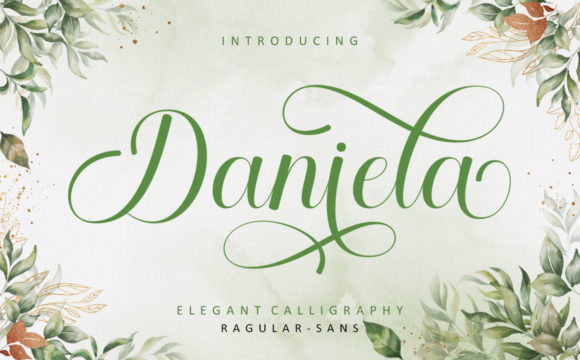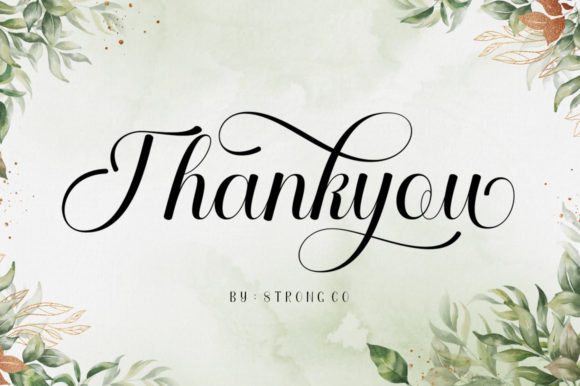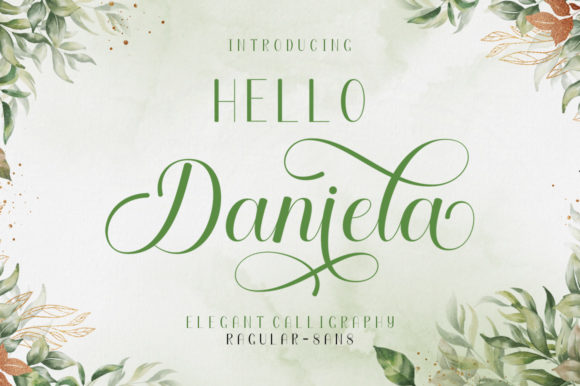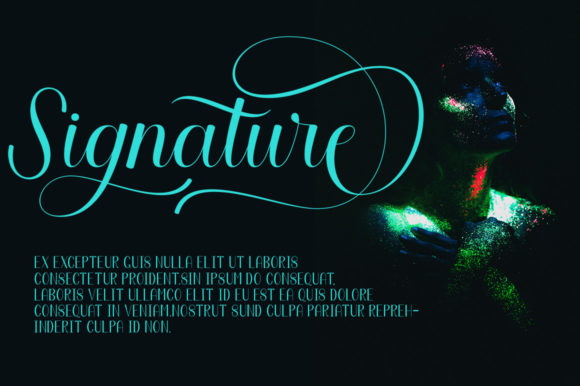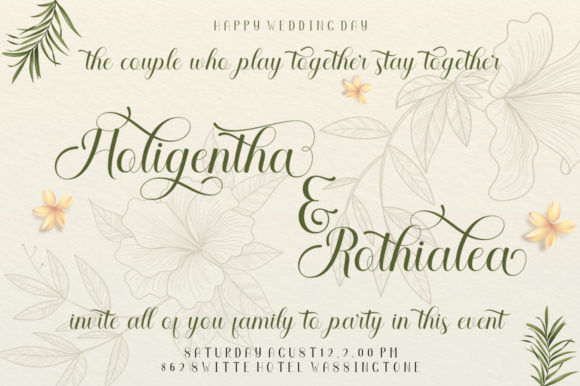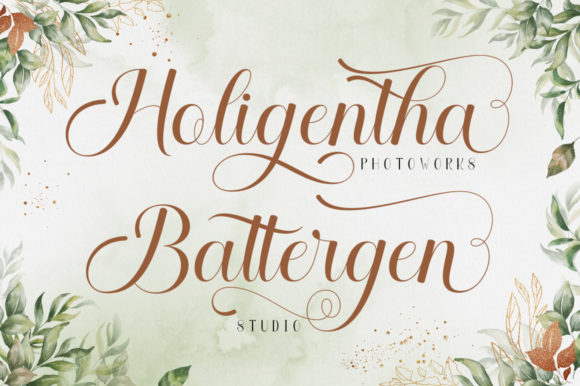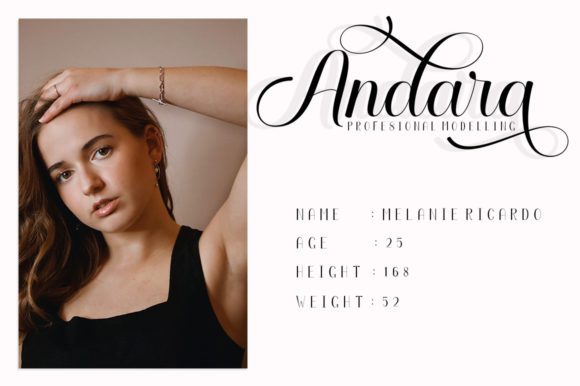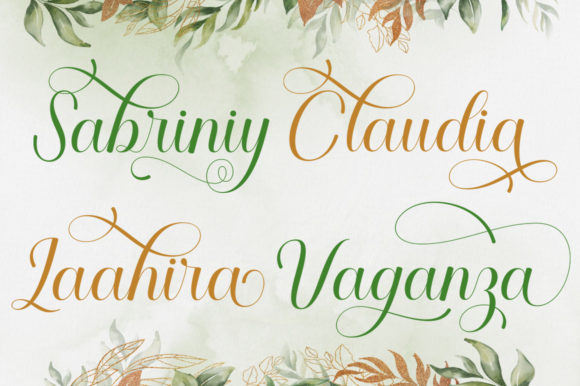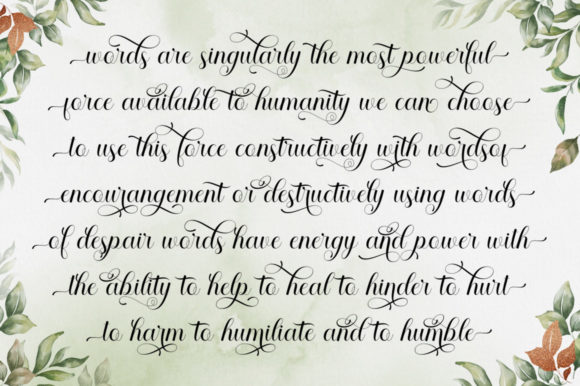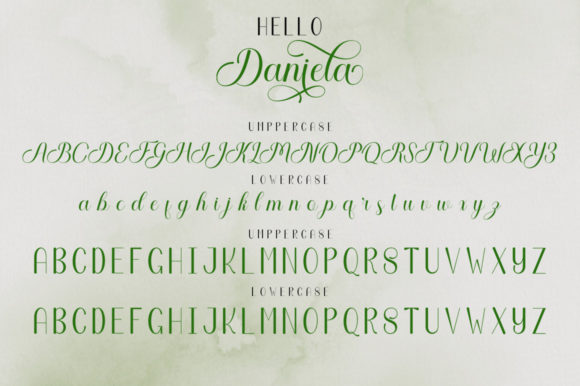
Daniela Font
About Daniela Font
Daniela is a lovely and versatile duo font (script and sans serif). It will add a luxury spark to any design project that you wish to create! This font is PUA encoded which means you can access all of the amazing glyphs and ligatures with ease!